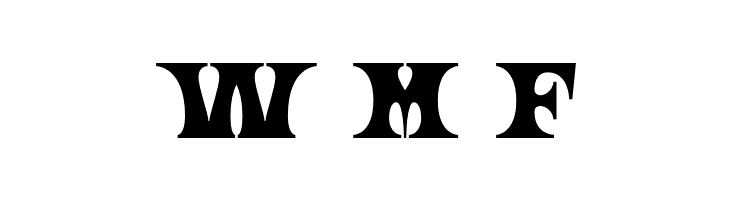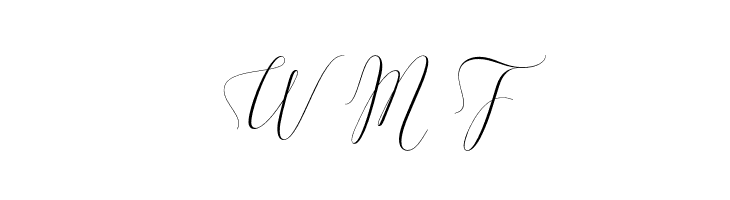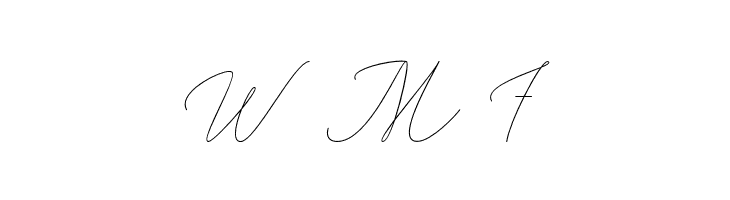
Euphemia UCAS Font
A clean, modern sans-serif font with excellent readability and versatility.
Ouroboros Regular Font
A bold, decorative font with high contrast and unique character designs.
Yesterday Morning PERSONAL Regular Font
A playful, handwritten font with tall, narrow letters and a dynamic style.
Yesterday Night PERSONAL Regular Font
A playful, handwritten font with a casual and energetic style.
Ocean View PERSONAL USE ONLY Regular Font
A delicate and flowing script font with elegant curves and smooth connections.
Roseline Dreams PERSONAL USE Regular Font
An elegant script font with flowing, cursive letterforms and intricate flourishes.